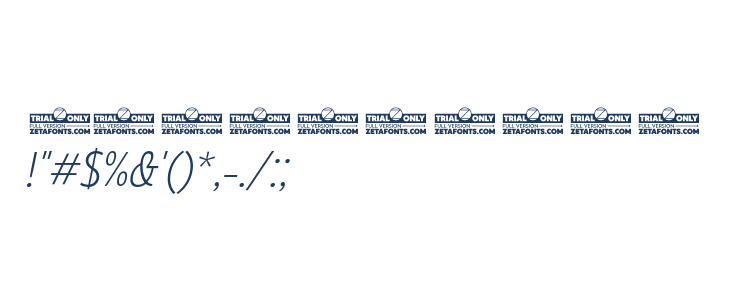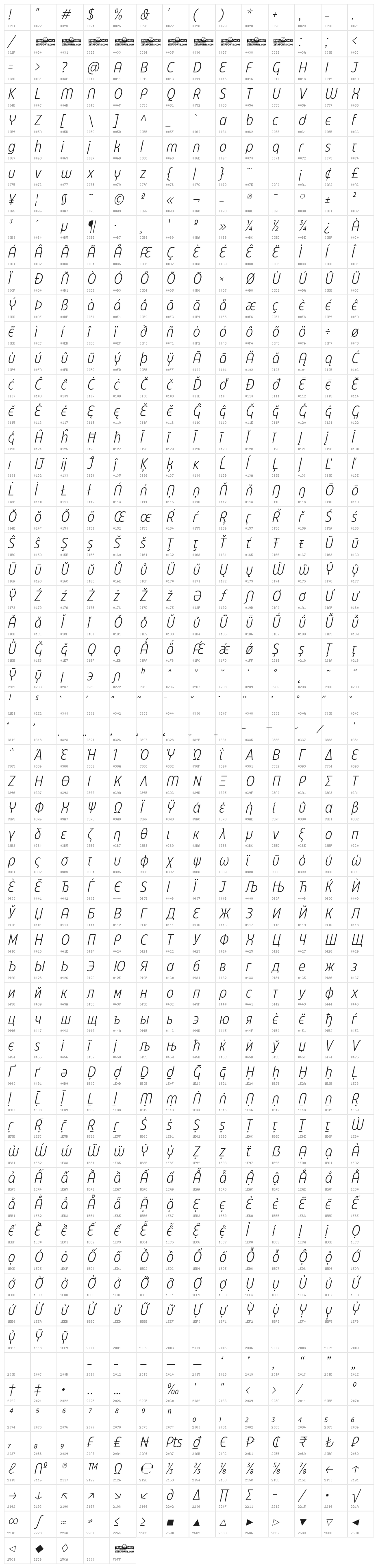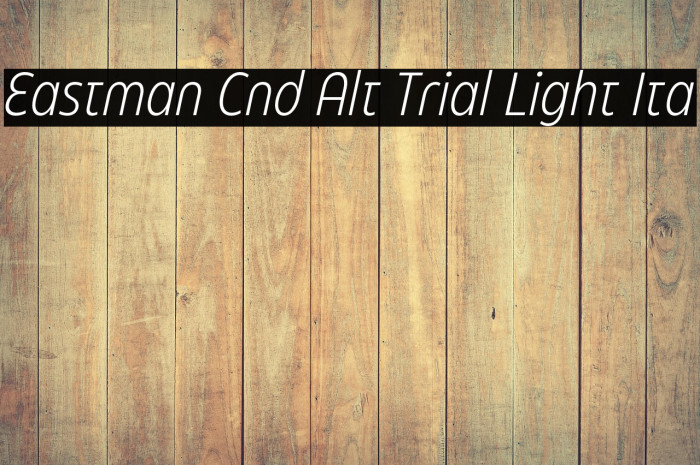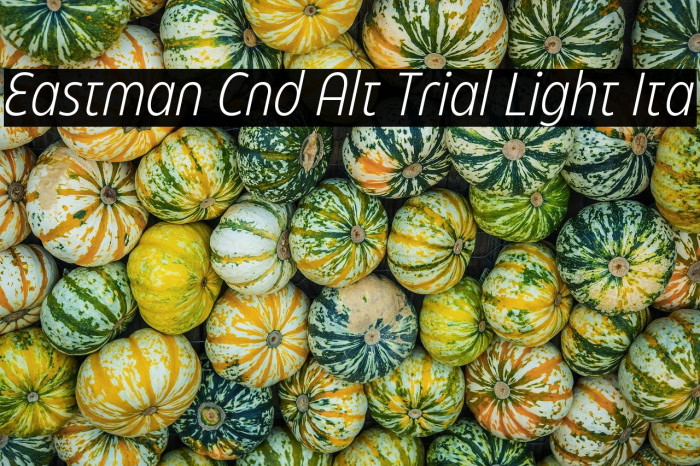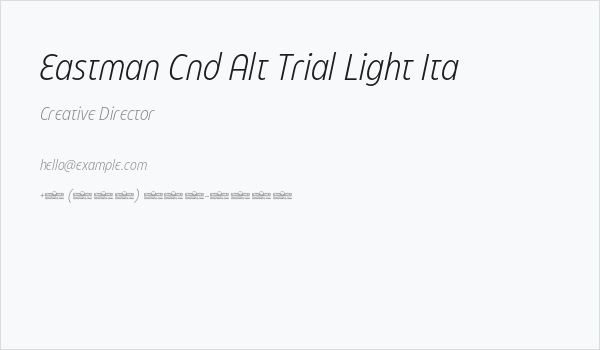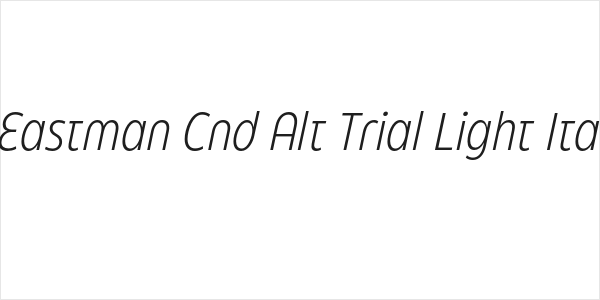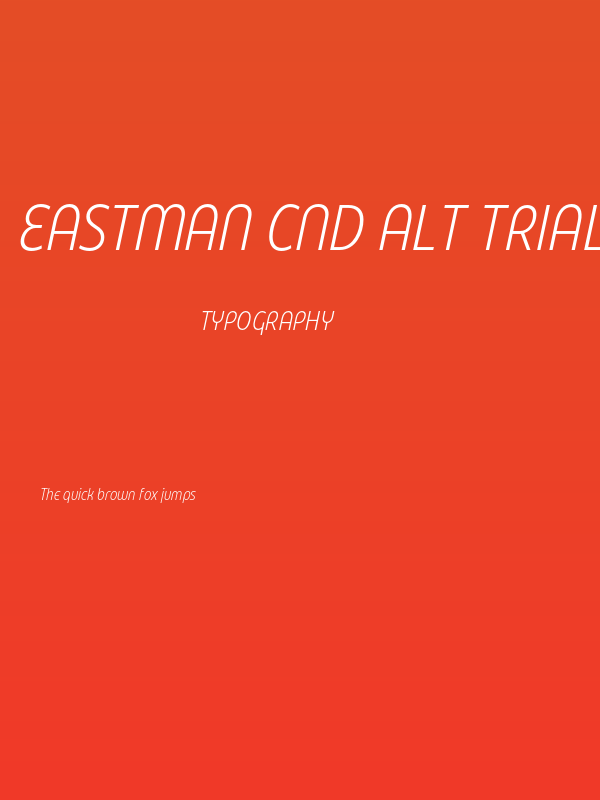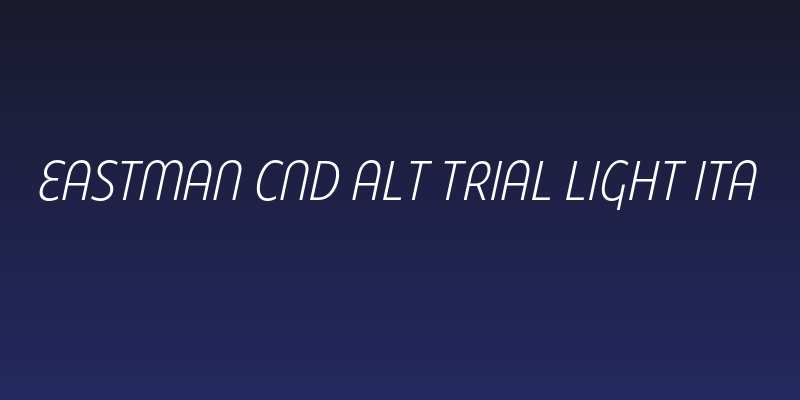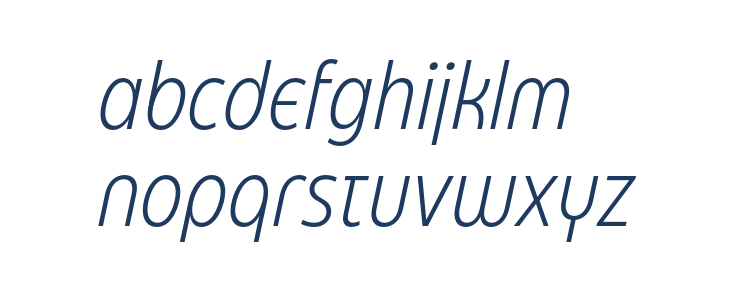
Eastman Cnd Alt Trial Light Ita Font
Eastman Cnd Alt Trial Light Ita Description
This font features a sleek and modern design with a condensed structure, offering a light and airy feel. Its italic style adds a dynamic and fluid touch, making it suitable for contemporary projects. The characters are elegantly curved, with a consistent stroke width that provides a harmonious appearance. The spacing between characters is tight, enhancing its compact and efficient look. This font is ideal for projects that require a modern and sophisticated aesthetic, such as branding, advertising, and editorial design.
| Proposed Projects | Ideal for branding, advertising, and editorial design projects. |